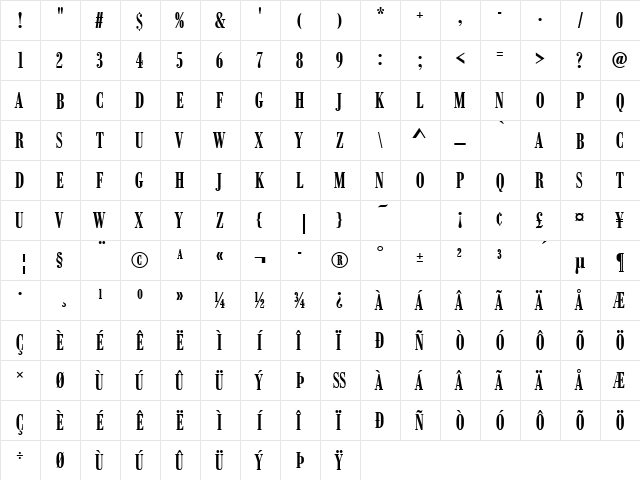
BodoniAntComDDemBol Regular
Design Context for BodoniAntComDDemBol Typeface
BodoniAntComDDemBol takes a measured approach to typography — its balanced proportions and neutral character make it a reliable workhorse for both digital and print work.